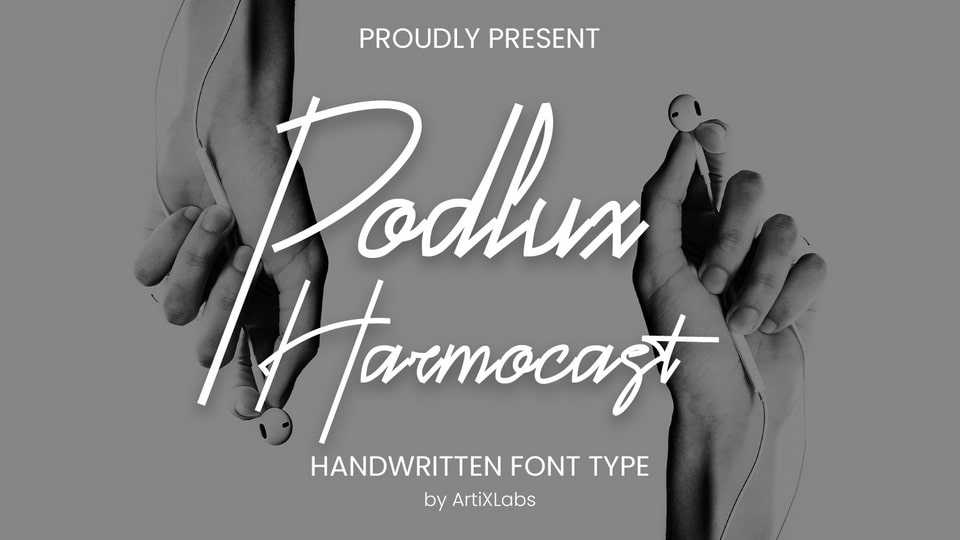
Download Introducing Podlux Harmocast – a casual signature-style handwritten typeface. This font template contains elegance, stylish, modern, creative, professional and unique concept.
Designer: ArtiXLabs